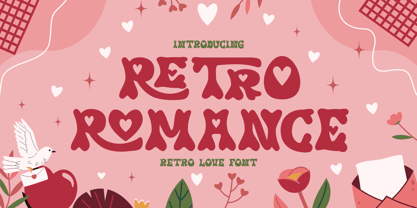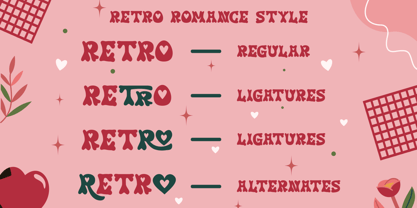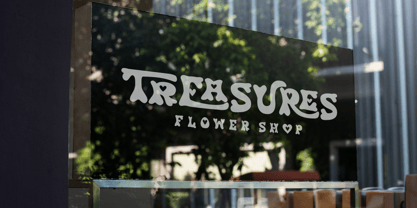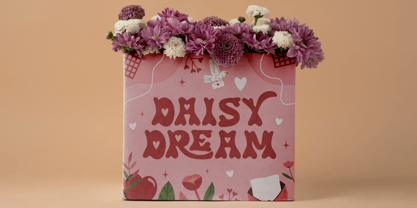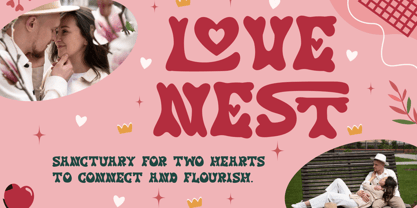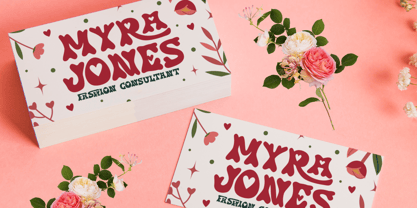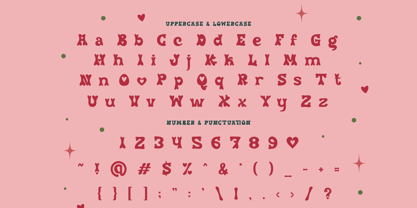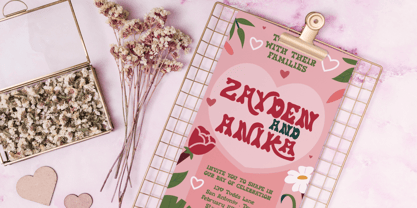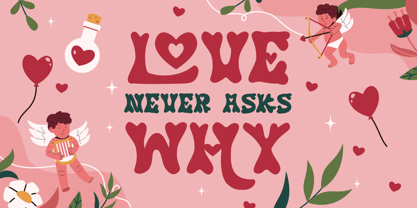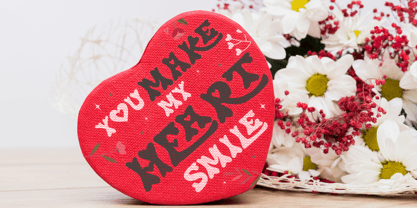
Retro Romance
La famille de polices Retro Romance a été conçue par Yesie Erma Yunita et publiée par Shanaf. Retro Romance contient 1 styles. En savoir plus sur cette famille
Retro Romance is a sweet and expressive display font with a groovy retro twist and a heartwarming touch. Each character is crafted with curvy forms and playful heart cutouts, creating a sense of movement and romance in every word. This font blends 70s-inspired bubble letterforms with love-themed alternates and stylish ligatures, offering a full set of uppercase, lowercase, and symbols. The charming swashes and soft curves make it ideal for romantic messages that stand out and feel personal.
Perfect for wedding invitations, Valentine’s Day packaging, couple merch, or love quotes on social media, Retro Romance makes your designs feel warm and emotional. It's bold enough for headers and posters but whimsical enough for greeting cards or boutique branding. With its multiple ligature styles and heart-integrated letters, this font turns words into visual declarations of affection. If you’re working on a romantic or nostalgic project, Retro Romance brings charm, character, and creativity in every letter.